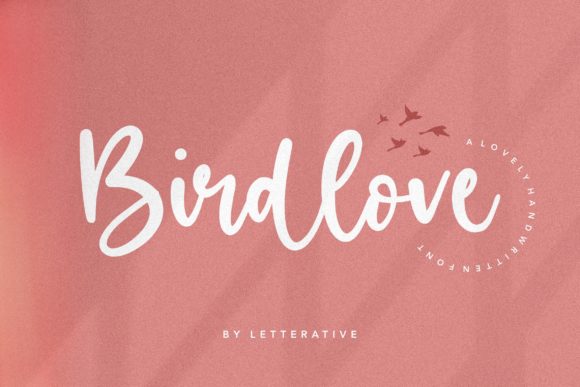
The Birdlove Font: A Dreamy, Personalized Touch for Your Designs
I’ll never forget the time I was working on a project for a client’s wedding invitation suite. I had the perfect design concept, but I just couldn’t find the right font to bring it all together. The client wanted something elegant, yet playful; something that would make their special day feel truly unique. That’s when I stumbled upon the Birdlove font, and it was love at first sight! 💕
Birdlove is a flowing and elegant handwritten font that adds a sweet and lovely touch to any design. Its dreamy, personalized feel makes it ideal for projects that require a bit of whimsy and romance. In this article, I’ll share my honest review of the Birdlove font, provide a practical guide on how to use it, and explore similar fonts that might suit your design needs.
• 💫 Elegant and flowing script with a personalized touch
• 🎨 Versatile and suitable for various design projects, from wedding invitations to branding and packaging
• 🌈 Beautifully crafted with a range of OpenType features and glyphs
• ⚠️ Some characters may require manual kerning for optimal spacing
• 🤔 Limited availability of bold or heavy weights, which might limit its use in certain design contexts
The Story Behind Birdlove Font
The Birdlove font was designed by a talented type designer who wanted to create a font that would evoke a sense of romance and whimsy. Inspired by the beauty of nature and the elegance of handwritten scripts, the designer crafted Birdlove to be a versatile and lovely font that would add a personal touch to any design.
Q: What type of designs is Birdlove font best suited for?
Birdlove font is ideal for designs that require a dreamy, personalized touch, such as wedding invitations, branding, packaging, and stationery.
Q: Is Birdlove font suitable for body text?
While Birdlove font is beautiful and elegant, it may not be the best choice for body text due to its script nature and potential legibility issues at smaller font sizes.